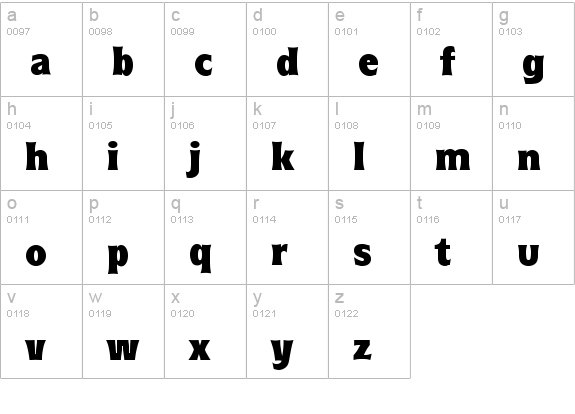
Roundest-ExtraBold is an extra-heavy, attention-grabbing variant in the Roundest typeface family \xE2\x80\x94 well suited to high-impact headlines, posters, and bold branding.
Introducing Roundest-ExtraBold font - a striking and modern typeface that exudes confidence and boldness. Its perfectly rounded shapes and extra bold weight make it stand out on any design project, adding a touch of sophistication and strength. Whether you're creating a logo, poster, headline, or any other design piece that requires a strong and impactful font, Roundest-ExtraBold is the perfect choice. The best part? Roundest-ExtraBold is available for free download at FontsMarket.com, making it easily accessible for designers and creatives looking to elevate their work with a high-quality typeface. Don't miss out on this opportunity to enhance your designs with the sleek and powerful Roundest-ExtraBold font - download it for free today and take your projects to the next level.